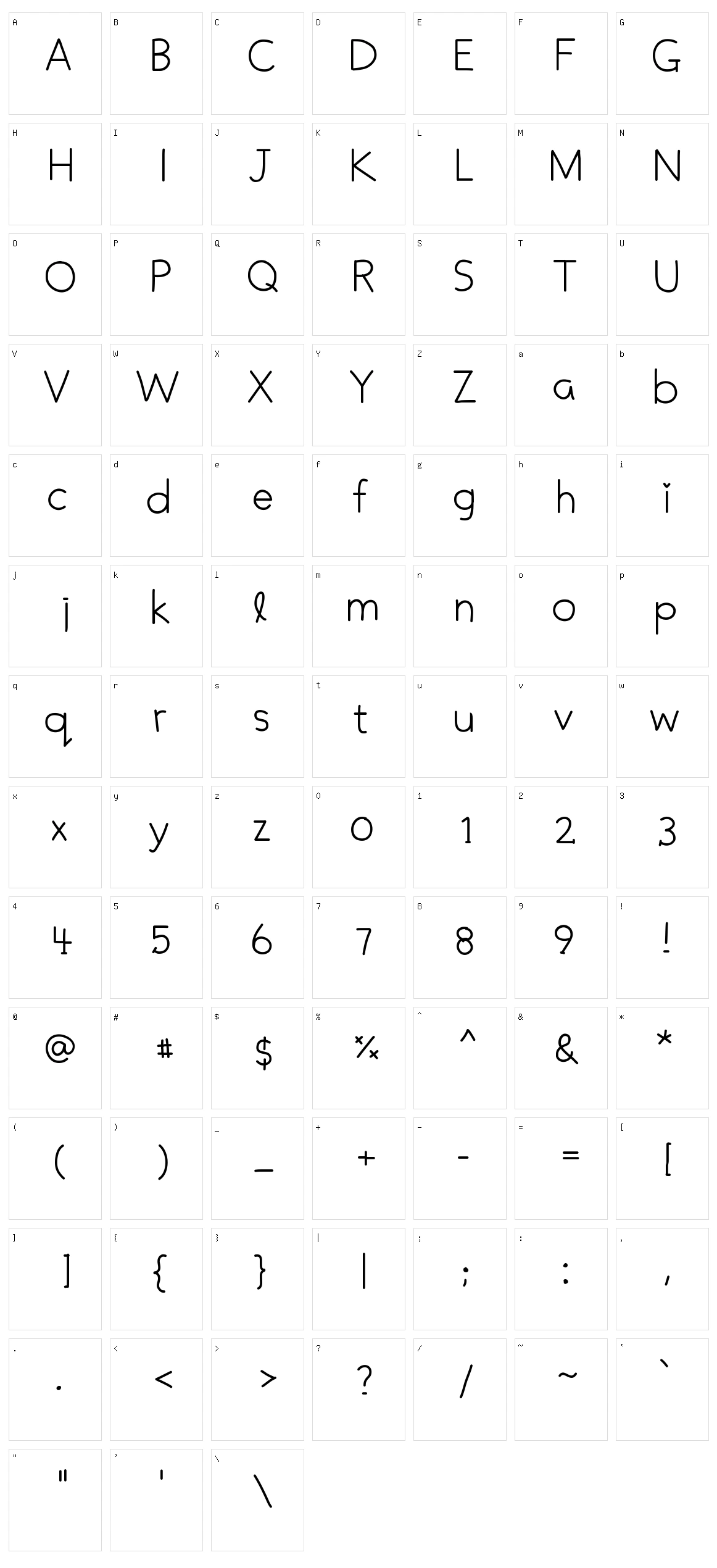
The free font DP Elionora is carefully designed by Camille David, showcasing a thoughtful balance of creativity and usability and falls under the Script font style. When you download the ZIP file, it contains only 12 KB of font files, making it lightweight and quick to download. Please review the license details below to understand permitted usage and distribution rights. If license information is not available, we recommend using this font for personal projects only or contacting the author directly for commercial usage permissions.